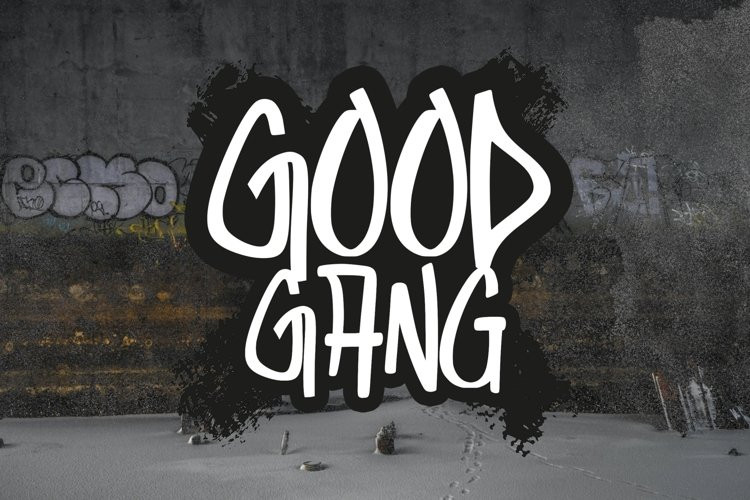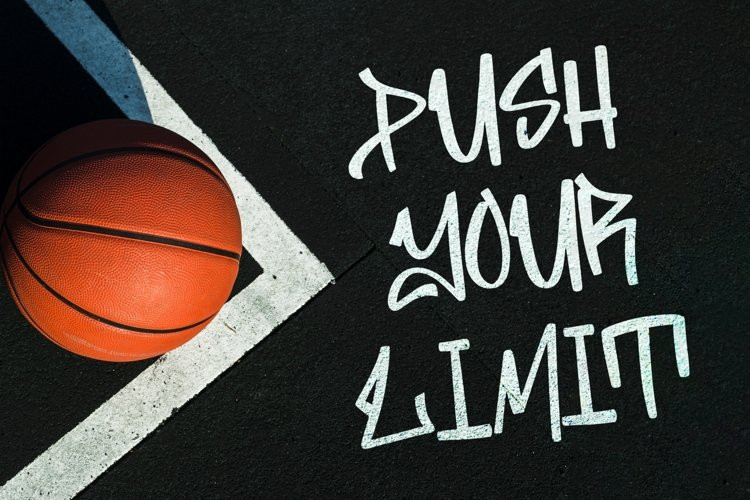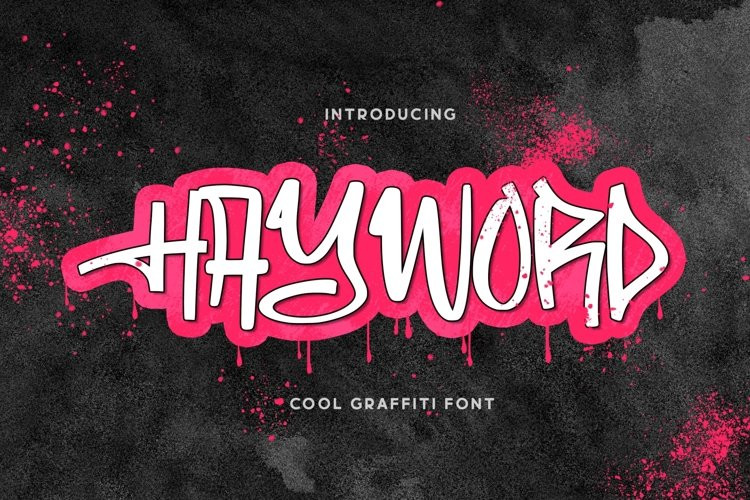
Hayword Font
Inspired from street art born Hayword suitable for many design project, branding, packaging, logo, wall art, headline, template, banner, poster, and many more projects. These include all caps, punctuation, and numerals.